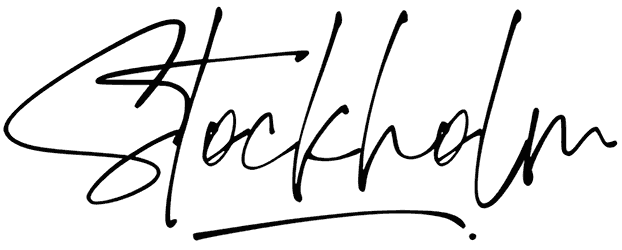
Rosterdam Signature Font
With a signature font like Rosterdam Signature, your text will have an elegant look. This calligraphy font has a contemporary and chic lettering style and a natural mood. As an all-purpose font with A-Z characters in two versions, Rosterdam Signature will nicely display various items, for instance, business cards, logos, postcards, and the rest.